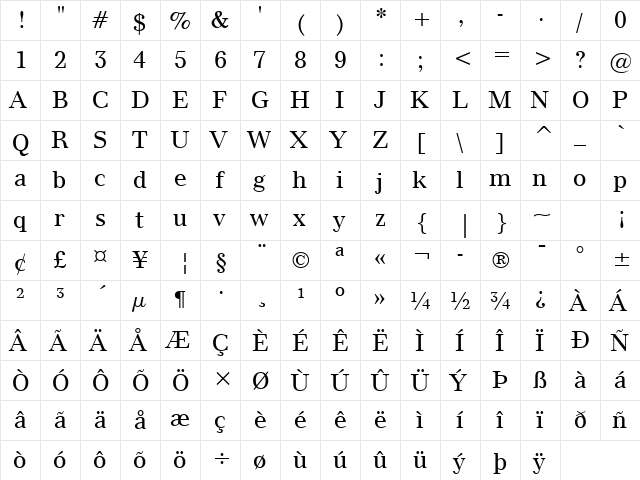
Modern880 BT Roman
Design Context for Modern880 BT Typeface
Modern880 BT is a composed and adaptable typeface that performs quietly and consistently across a wide range of design contexts.